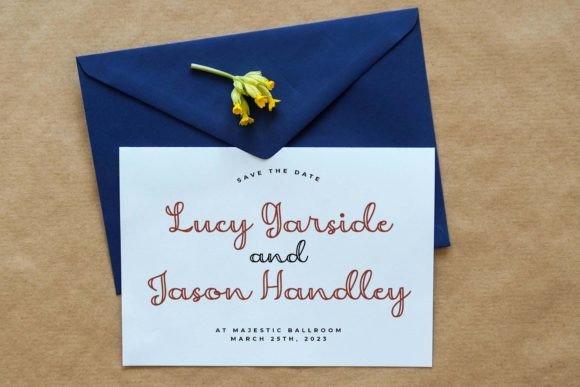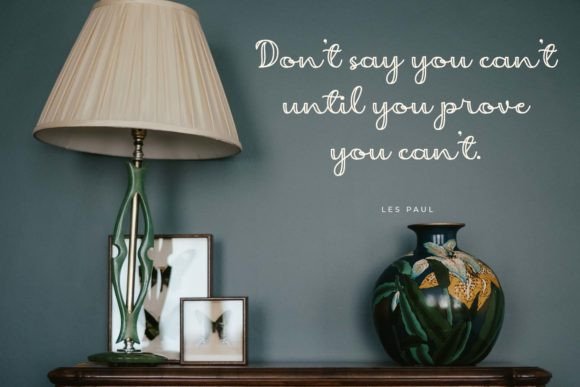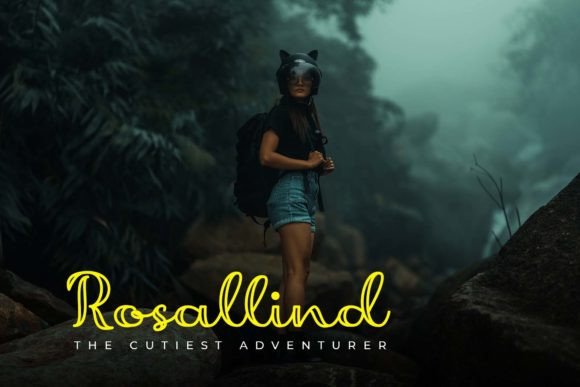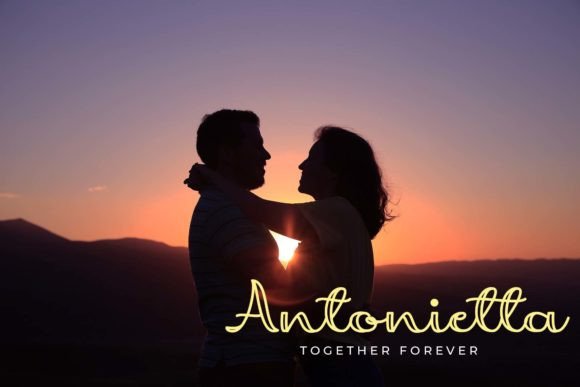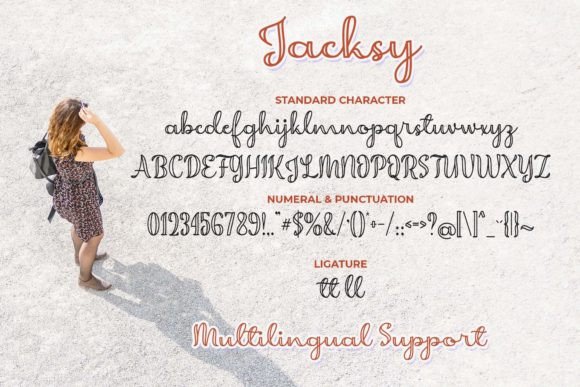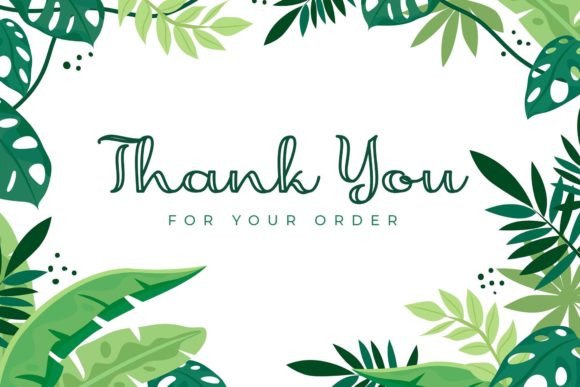
Introduction to Jacksy Font
Have you ever found yourself staring at a blank canvas, a glowing screen, or a sheet of paper, waiting for inspiration to strike? The blank slate can be intimidating, but what if I told you there’s a secret to unlocking your creative potential? For designers, finding the perfect font can be the difference between a mediocre project and a masterpiece. Enter the Jacksy Font, a warm, romantic, and jovial outline font that’s about to revolutionize your creative process.
As a valuable design resource, the Jacksy Font offers unparalleled flexibility and versatility. With its PUA coding, you can easily access all the glyphs and swashes, making it perfect for any creative project that requires a personal touch. Whether you’re working on a high-quality design, a free download, or a project with a transparent background, this font is sure to elevate your work.
So, what sets the Jacksy Font apart from the rest? Its ability to bring a sense of warmth and personality to any design, making it a must-have for any designer looking to take their projects to the next level.
Key Features of Jacksy Font
- High-quality, professional font perfect for creative projects and design resources.
- Transparent background and clear, legible text make it ideal for use on images and graphics.
- Designed to be highly scalable, with excellent resolution at sizes up to 1000 points.
- Unique characteristics include a modern, clean aesthetic and a wide range of language support.
- Perfect for use in logos, typography, and other design elements where a high-quality font is required.
Honest Review: Jacksy Font
I recently stumbled upon the Jacksy Font while searching for a unique design resource for a creative project. I was immediately drawn to its quirky, playful feel, and I couldn’t wait to see how it would perform in my design.
- ✨ High quality font with crisp lines and clear letterforms.
- ✨ A wide range of characters, including international support, making it suitable for a global audience.
- ✨ Can be used for both digital and print projects, offering flexibility and versatility.
- ⚠️ The font is not ideal for projects that require a transparent background, as it can be quite bold and overpowering.
- ⚠️ Some characters may not render correctly in certain font sizes or styles, which can be frustrating for designers who value consistency.
Overall, I’m impressed with the Jacksy Font’s unique character and high quality. While it may not be perfect for every project, it’s definitely a valuable addition to any designer’s toolkit. I’d recommend it for designers looking for a bold, playful font that’s perfect for creative projects.
Jacksy Font
Tips for Getting the Most Out of Jacksy Font
Use Jacksy Font for high-quality designs with a transparent background for a creative project.
Jacksy Font is ideal for:
- Logos and branding materials.
- Infographics and data visualizations.
- Brochures and flyers.
Alternatives to Jacksy Font
Great Vibes Font is a high-quality, handwritten font perfect for creative projects that require a unique touch. Its transparent background makes it ideal for use on transparent backgrounds or overlays. Great Vibes Font is available for free download and is suitable for designers looking for an alternative to Jacksy Font’s playful feel.
When to use: Great Vibes Font is ideal for projects that require a whimsical, handwritten feel, such as invitations, posters, or social media graphics.
Comparison: Great Vibes Font offers a more elegant and refined feel compared to Jacksy Font, making it a great choice for designers who want to add a touch of sophistication to their creative project.
Pacifico Font is a high-quality, serif font that exudes a sense of relaxation and calmness. Its clean lines and elegant feel make it perfect for use in design projects that require a professional touch. Pacifico Font is available for free download and is a great alternative to Jacksy Font for designers who want to add a sense of sophistication to their creative project.